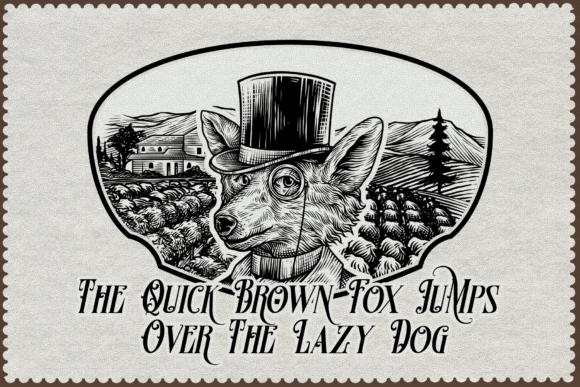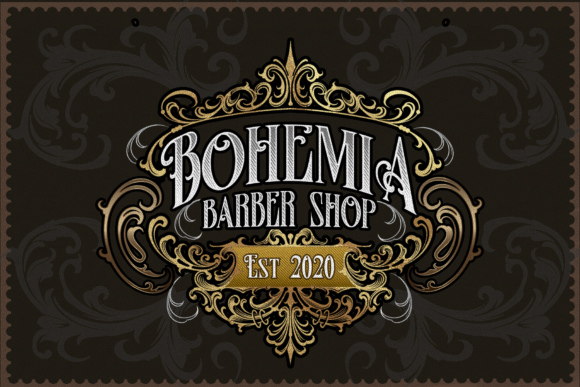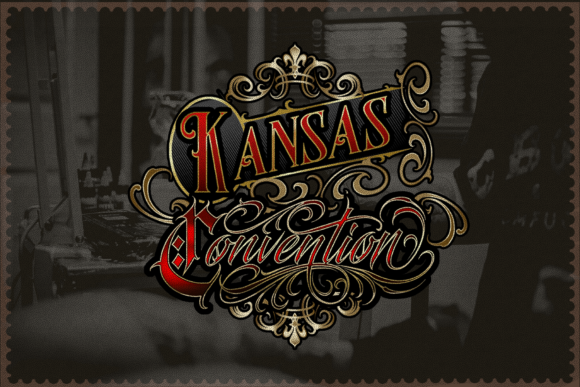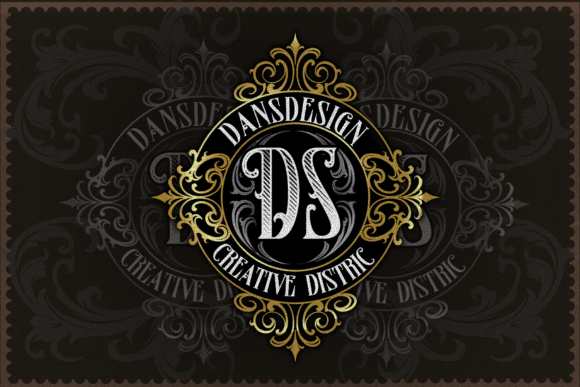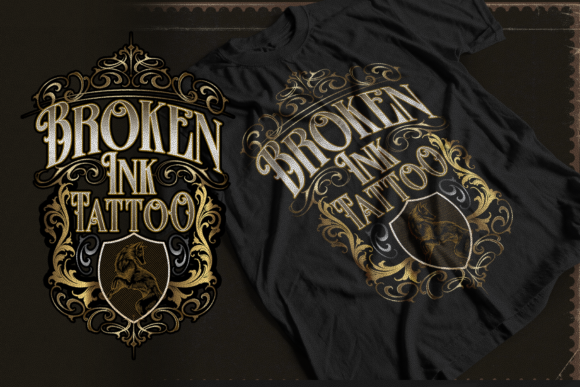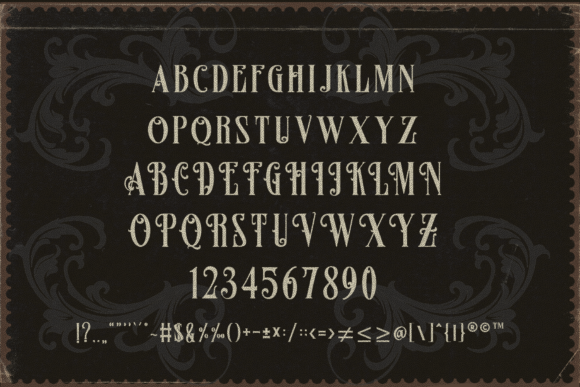
Introduction to Famous Flames Font
Do you remember the moment when a particular font caught your eye, and you knew it was the perfect fit for your creative project? For designers, that moment is priceless. It’s the spark that ignites the entire design process, making every element fall into place. For me, that moment happened when I stumbled upon the Famous Flames Font.
| 👤 Author | Dansdesign |
This stunning blackletter font has been a game-changer for many designers, and for good reason. Its incredibly stylish look and versatility make it an invaluable asset for any creative endeavor. From logos and quotes to invitations and business cards, the Famous Flames Font is the perfect design resource to elevate your work. Whether you’re working on a high-quality project or just need a quick solution, this font is sure to deliver.
Key Features of Famous Flames Font
- High-quality font design ideal for creative projects, including logos, graphics, and more.
- Features a unique, bold style with a transparent background, allowing for seamless integration into various design elements.
- High-resolution font files, suitable for use at various sizes, from small text to large headlines.
- Designed to be scalable, ensuring crisp and clear text even at high resolutions.
Honest Review: Famous Flames Font
I recently came across the Famous Flames Font, and I have to say it’s been a game-changer for my creative project. The high quality and unique design make it stand out from other free fonts out there. I love how versatile it is and how it adds a touch of elegance to any text.
- ✨ Works well for titles and headings due to its bold and eye-catching design
- ✨ Suitable for a wide range of creative projects, from fashion to gaming
- ✨ Offers a transparent background, making it easy to overlay on images
- ✨ High quality, making it perfect for professional designs
However, I do have to mention a few limitations:
- ⚠️ May not be suitable for small text due to its bold design
- ⚠️ May require some adjustments to achieve the desired look on certain backgrounds
Overall, I’m really impressed with the Famous Flames Font. Its unique design and high quality make it an excellent addition to any designer’s toolkit. I’d definitely recommend it to anyone looking for a free, high-quality font for their creative project.
How to Use Famous Flames Font
The Famous Flames Font is a versatile and stylish design resource ideal for creative projects. With its high-quality design and transparent background, it’s perfect for adding a touch of sophistication to your work.
To maximize the potential of the Famous Flames Font, experiment with different font sizes, colors, and combinations to achieve a unique look.
The Famous Flames Font is suitable for various design projects, including:
- Advertising and marketing materials
- Editorials and publications